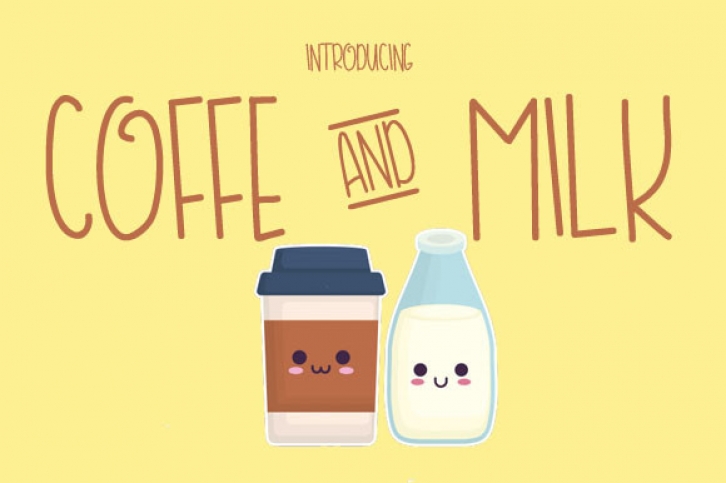
Coffe and Milk is playful handwritten font. It’s perfect for various whimsical designs, logos, greeting cards, quotes, and much more. It will look outstanding in a wide range of contexts.